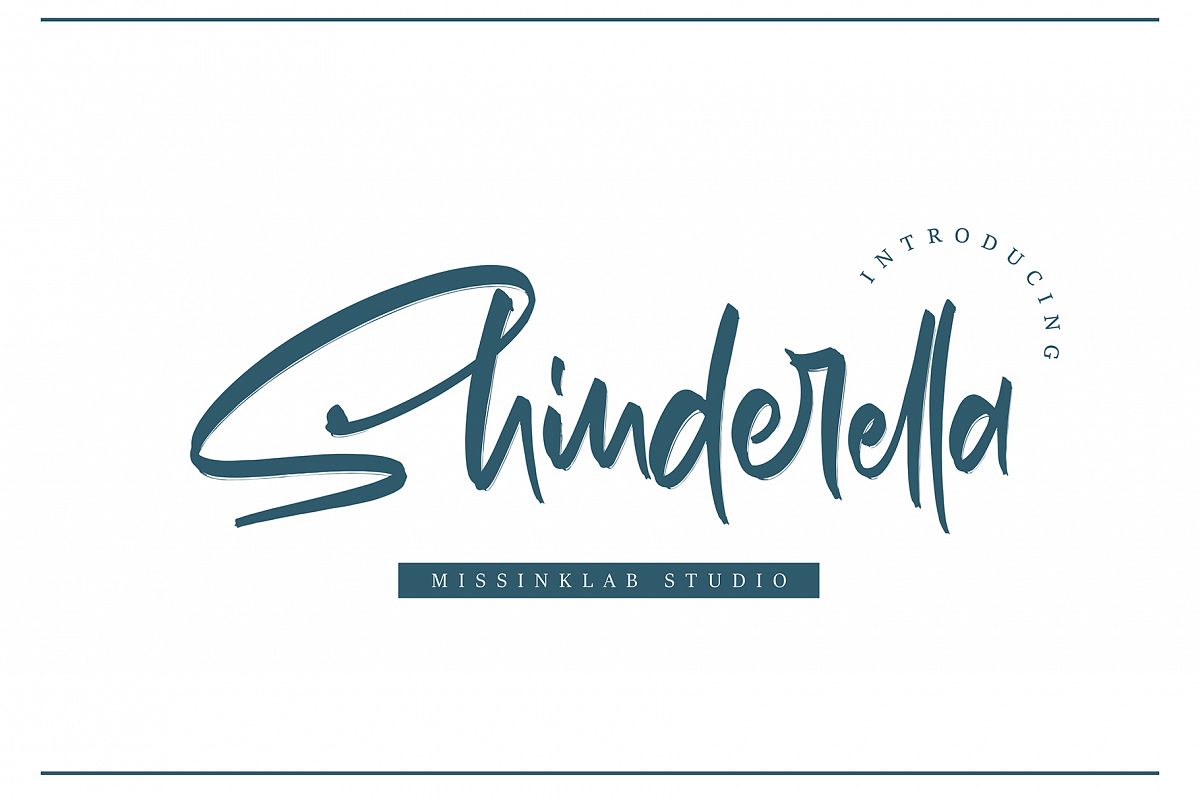
Shinderella
Shinderella font with brushs style handwritten, this font will perfect for many different project ex: quotes, logo, blog header, poster, banding, fashion, apparel, letter, invitation, stationery, etc...